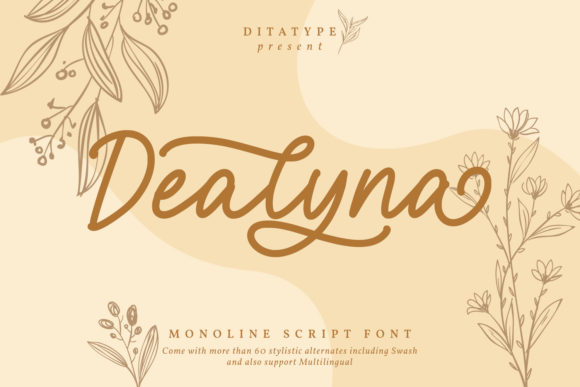
Unleash the enchantments of Dealyna, the captivating handwritten font that dances across your designs with grace and allure. Immerse yourself in the world of exquisite typography, where letters intertwine like delicate vines and every word carries a whisper of magic.
Dealyna's varying baseline and smooth, flowing lines bring a sense of organic beauty to your creations. Each character exudes elegance and charm, capturing the essence of handwritten artistry. With its gorgeous glyphs and stunning alternates, Dealyna offers endless possibilities for customization, allowing you to craft truly unique and expressive designs.
Step into a realm where imagination meets inspiration, where the ordinary transforms into the extraordinary. Dealyna isn't just a font—it's a gateway to a world of endless creative possibilities. Elevate your menu designs, wedding invitations, branding, and social media posts with a touch of magic.
With Dealyna, your words will sing, your messages will captivate, and your designs will leave a lasting impression. Its PUA encoding ensures seamless access to all glyphs and swashes, making it a breeze to bring your creative visions to life.
Embrace the enchantment of Dealyna, and embark on a journey where beauty and functionality dance in perfect harmony. Let your creativity soar as you weave words into enchanting tales, leaving a trail of wonder and delight in your wake.